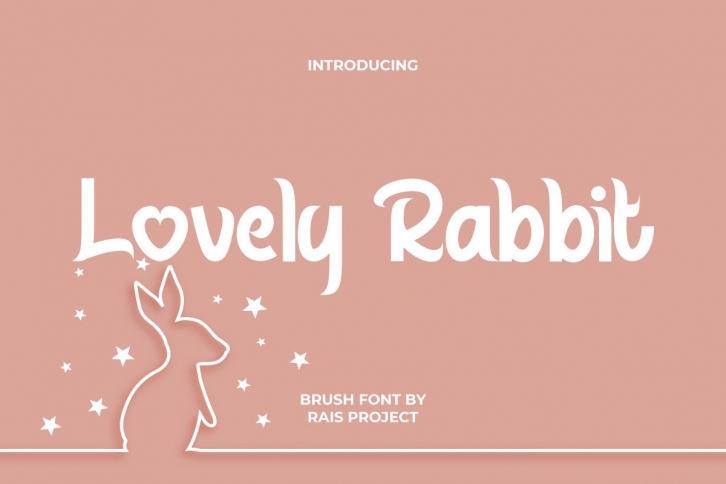
Lovely Rabbit Font is a display font inspired by cute animals and cartoon animation. It is a playful fun-shaped font with a unique shape and effect that is great for any project for Comics, cartoons, movies, games, and events.